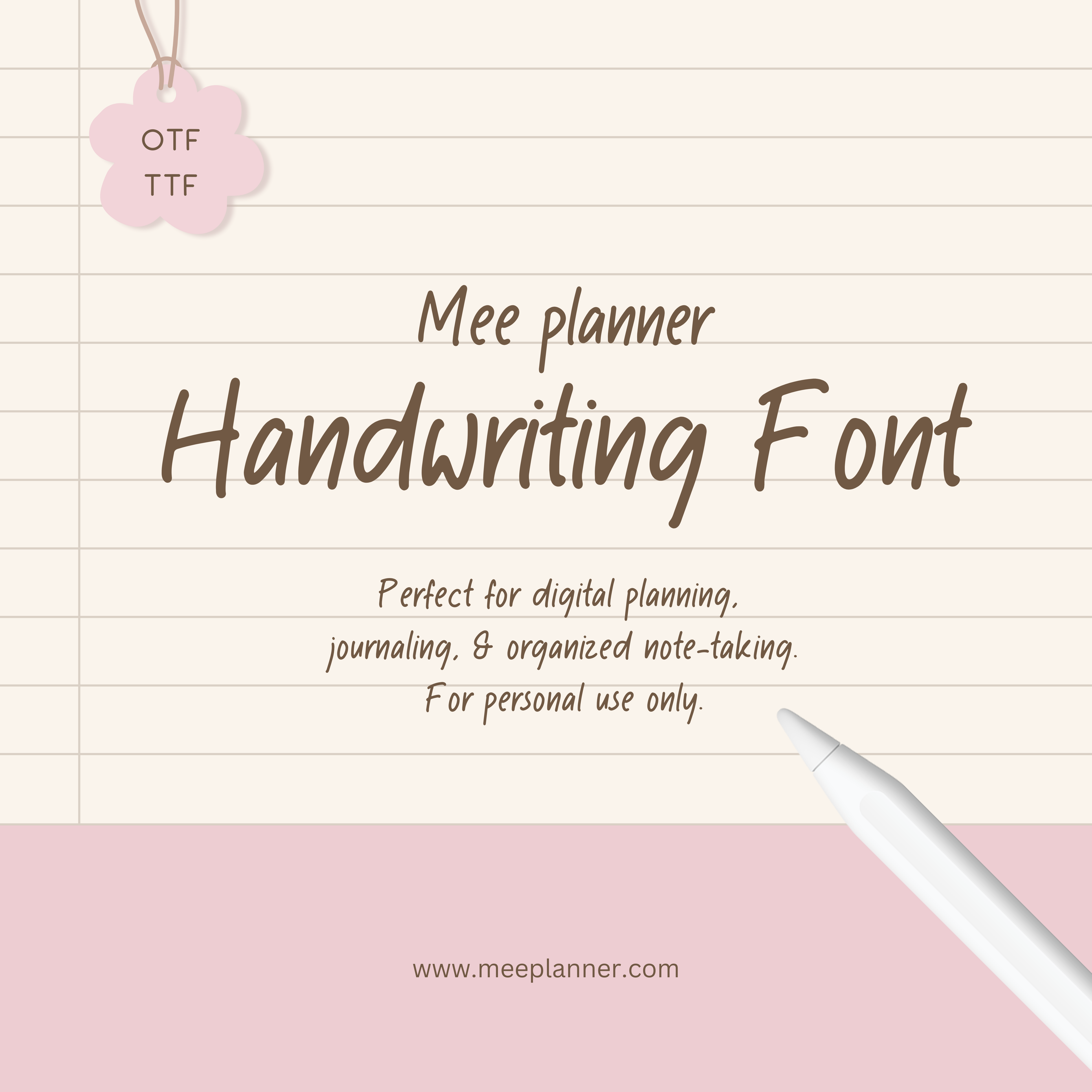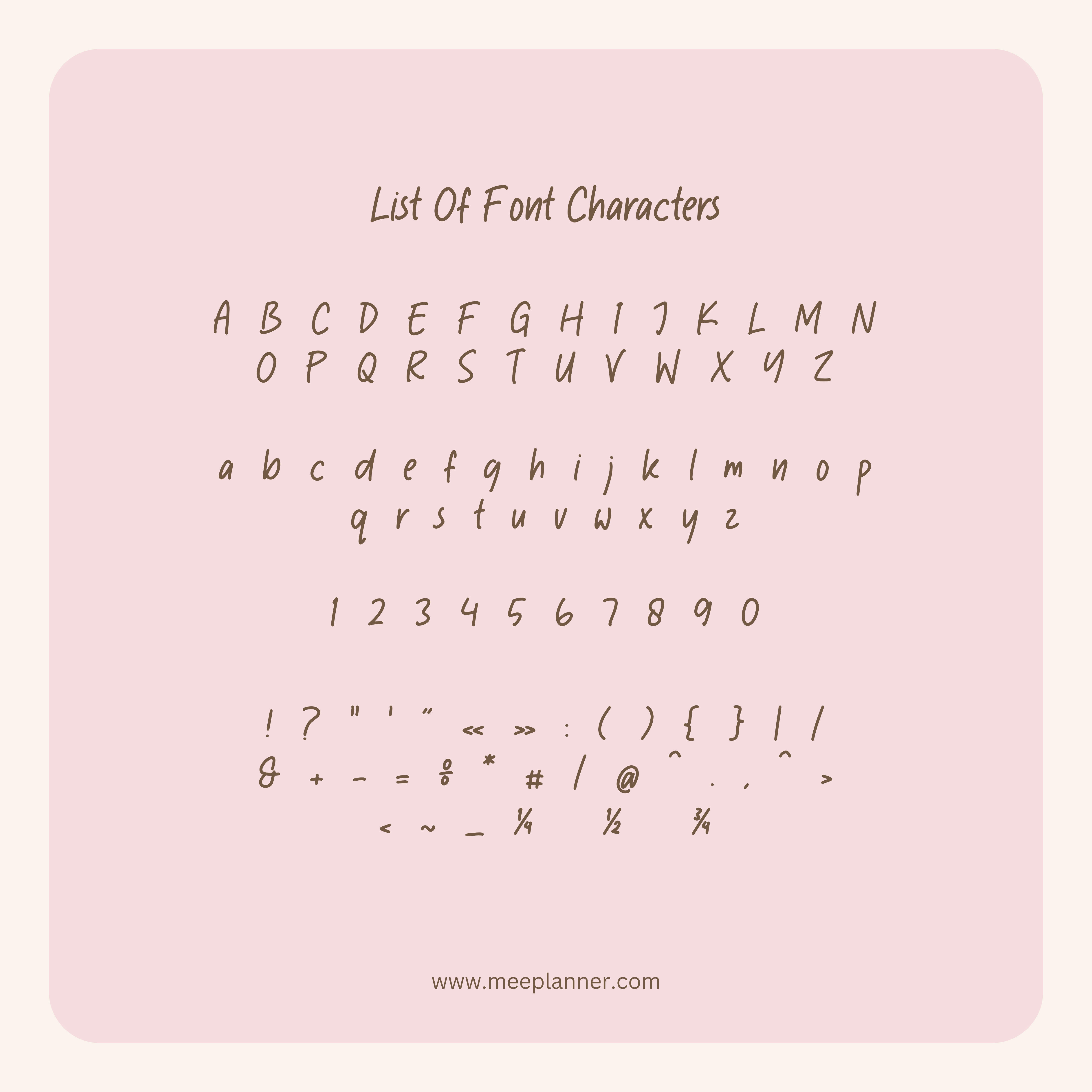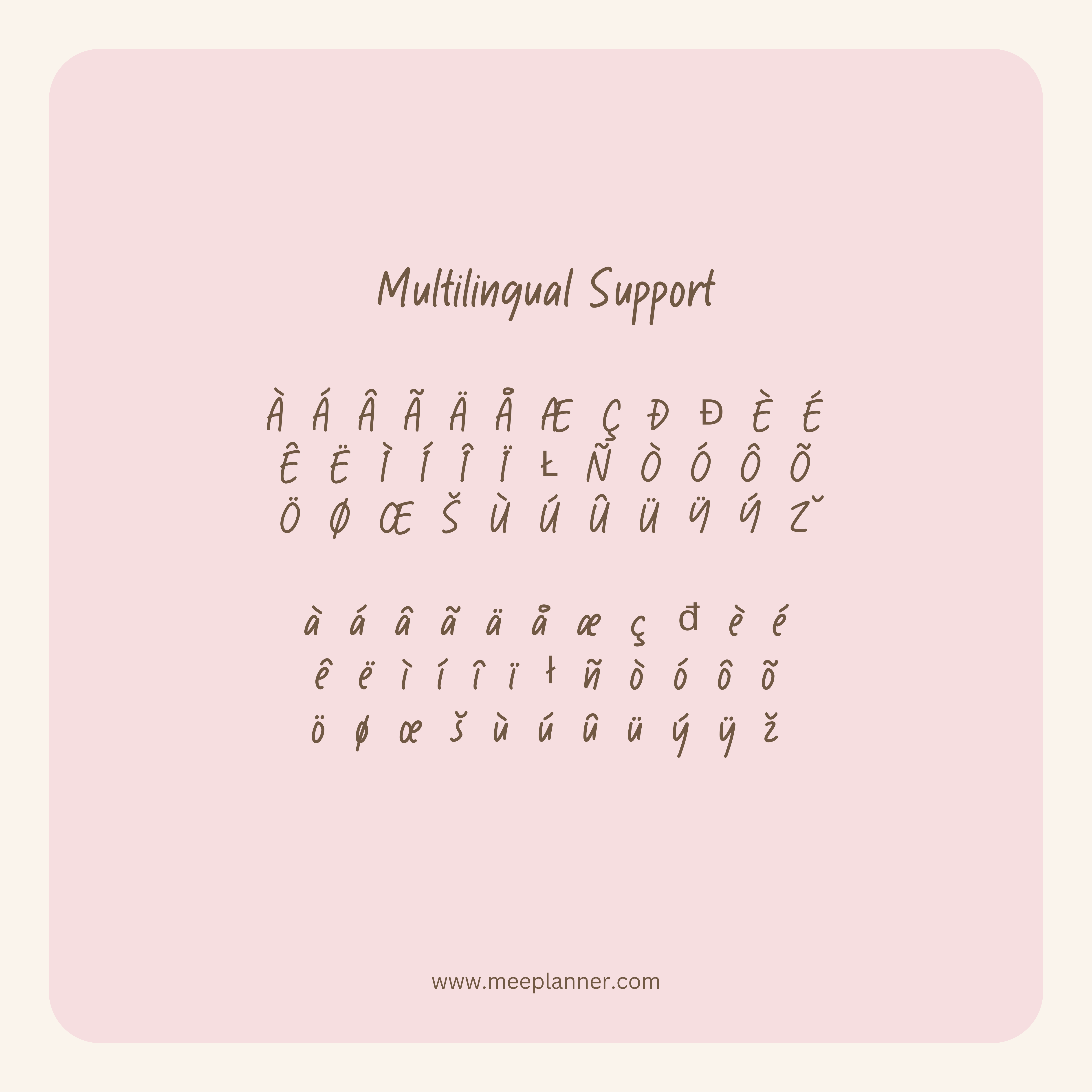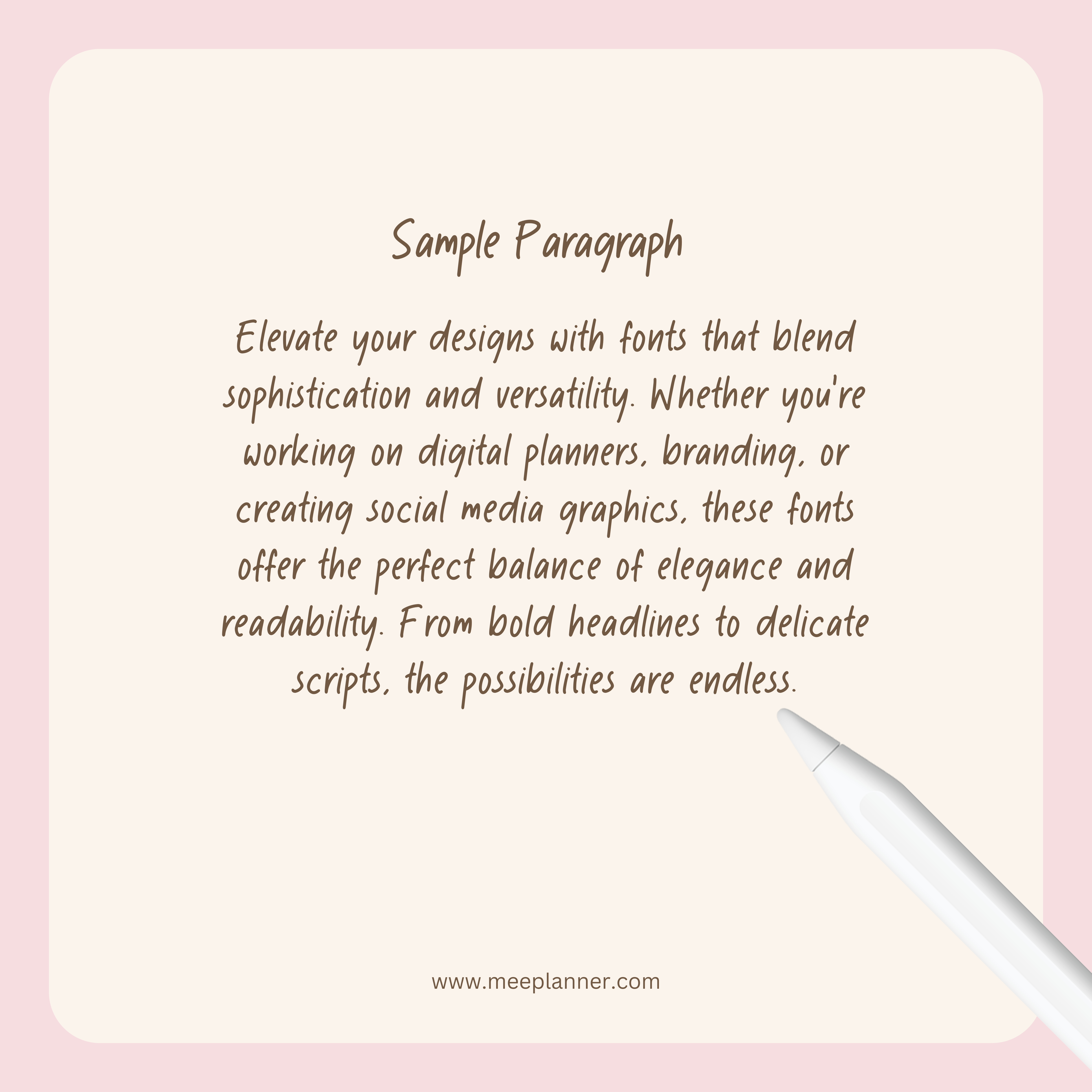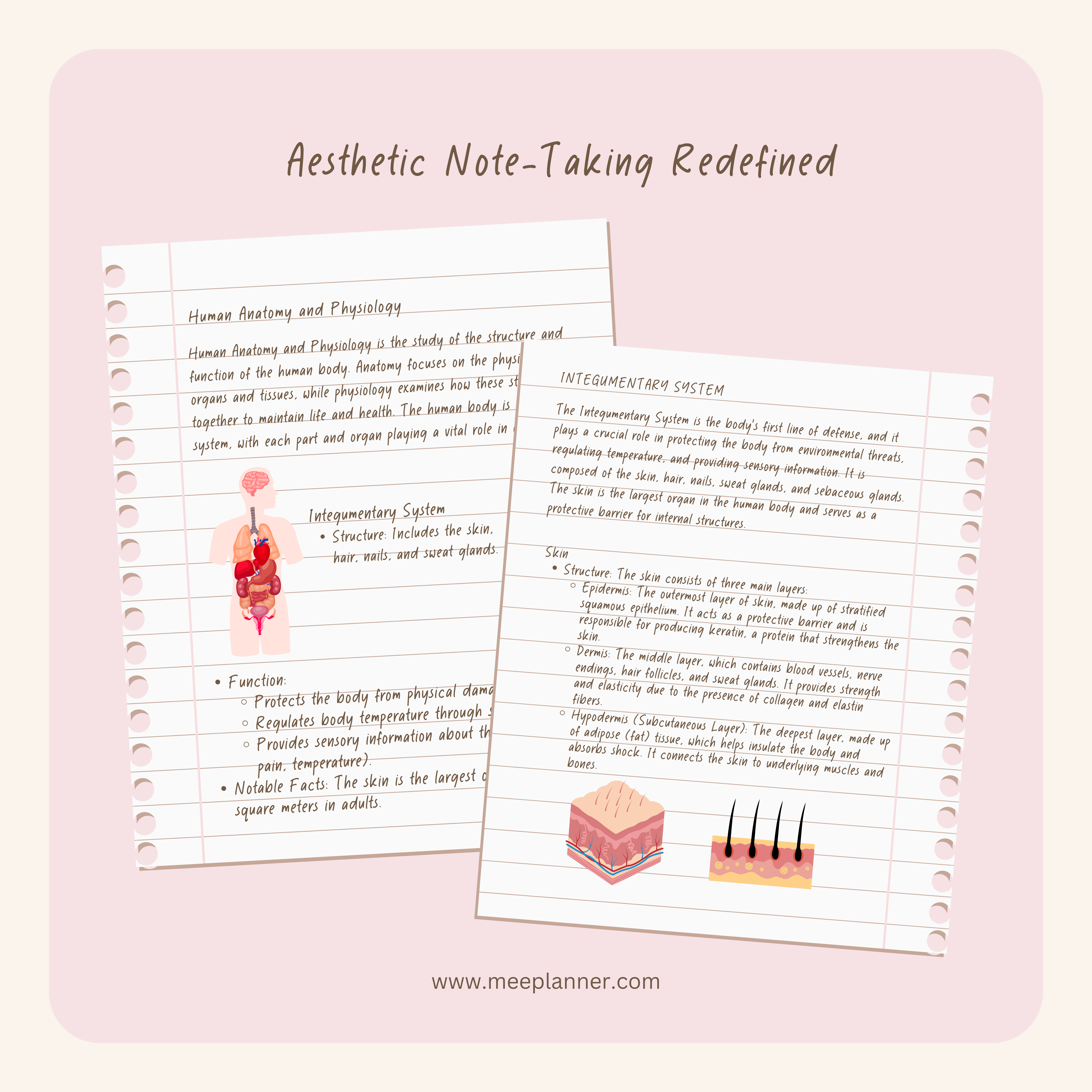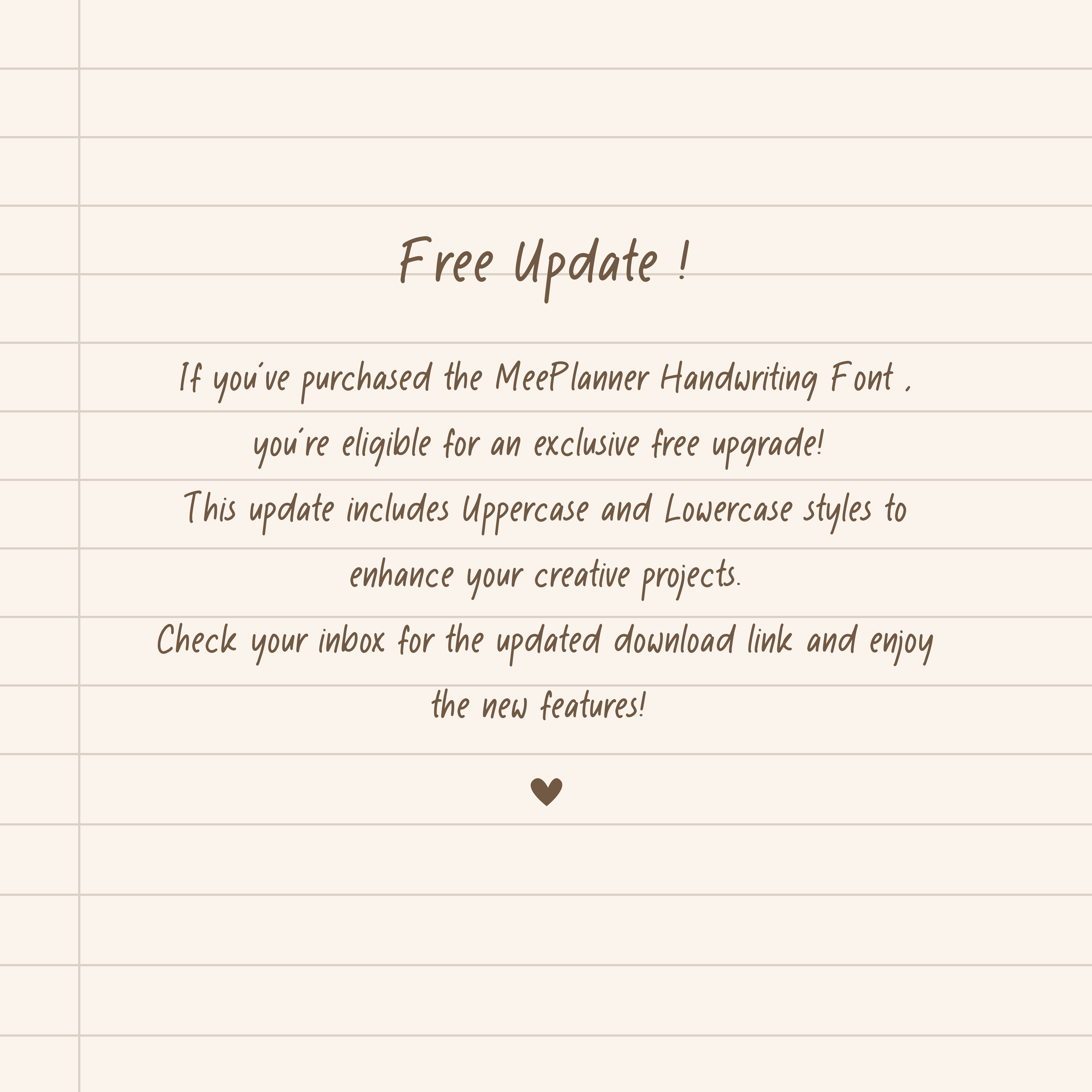
Enhance your designs with style
Transform any project with the Aesthetic Handwriting Font, designed to add a personal touch to your creations. Perfect for invitations, logos, or quotes, this font brings elegance and readability together. Its smooth lines and balanced spacing ensure clarity without sacrificing artistic flair.
Versatile applications for creatives
Ideal for graphic designers, bloggers, or social media influencers, this font complements a variety of styles and themes. From modern chic to vintage charm, its adaptability makes it a favorite among creatives. Bring your visions to life across digital platforms and print mediums alike.